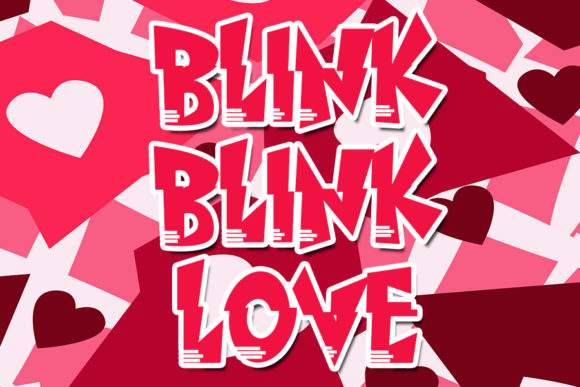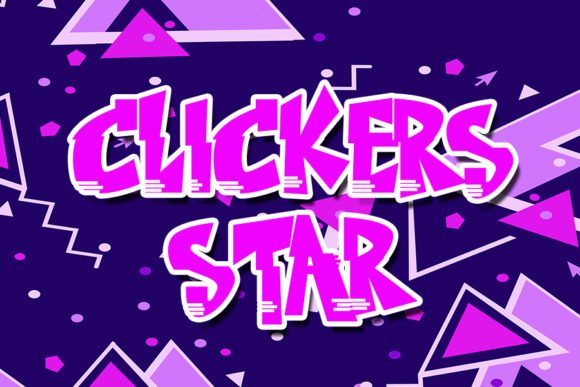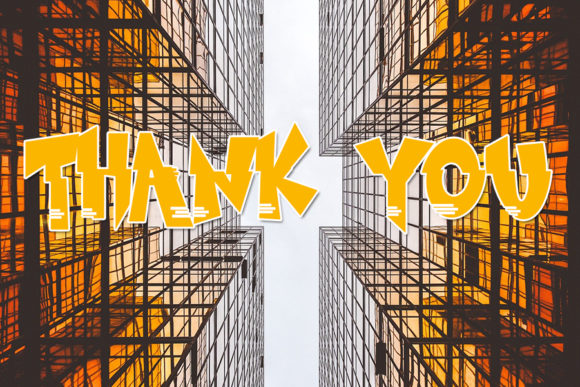
Introduction to Monkey House Font
Monkey House is a unique display font.
Add this font to your creative ideas and notice how it will make them stand out .
Key Features of Monkey House Font
Why Choose Monkey House Font?
Monkey House Font offers exceptional quality and versatility, making it a valuable addition to your design toolkit. Whether you’re creating for personal projects or commercial use, Monkey House Font delivers professional results.